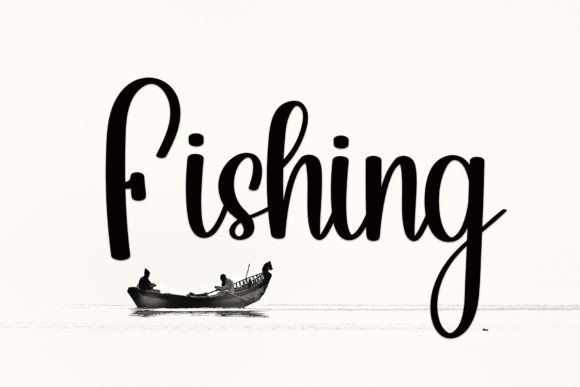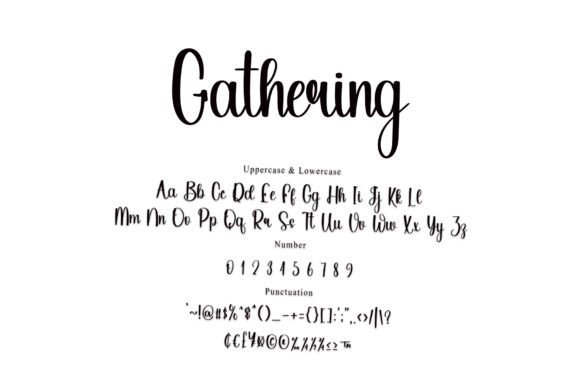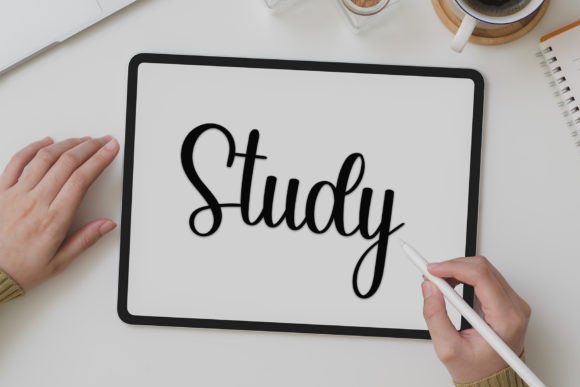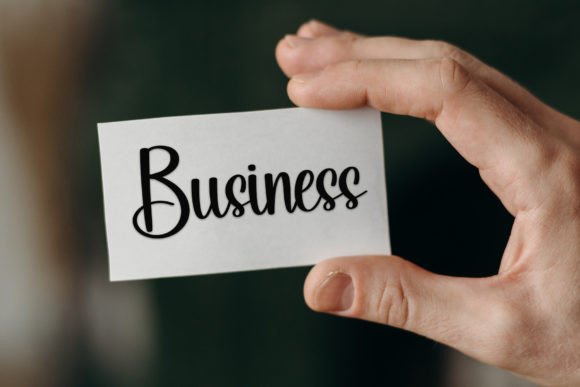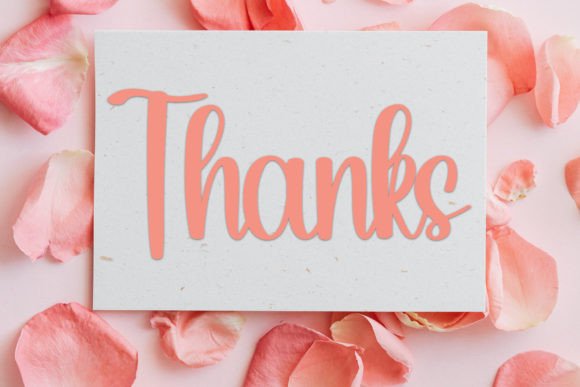
The Perfect Creative Companion: A Deep Dive into Gathering Font
I’ll never forget the moment I stumbled upon the Gathering font while working on a DIY project for a client’s wedding invitation. I had spent hours searching for the perfect handwritten font that exuded elegance and playfulness, but nothing seemed quite right. That was until I laid eyes on Gathering – it was love at first sight! 💕
With its unique blend of whimsy and sophistication, Gathering has become my go-to font for a wide range of creative projects. In this article, I’ll share my honest review, provide a practical guide on how to use it, and explore similar fonts that might tickle your fancy.
An Honest Review of Gathering Font
- ✨ Elegant yet playful: Gathering strikes the perfect balance between sophistication and whimsy, making it suitable for a wide range of projects.
- ✅ Highly versatile: From Instagram posts to calligraphy scripts, Gathering can be used for various creative endeavors.
- 💫 Unique character: The font’s distinctive style ensures that your work will stand out from the crowd.
- 🌟 Easy to read: Despite its decorative nature, Gathering remains surprisingly legible, even at smaller font sizes.
While Gathering is an exceptional font, it’s not without its limitations. For instance:
- ⚠️ Limited use in formal contexts: Gathering’s playful nature might make it unsuitable for very formal projects, such as corporate reports or academic papers.
- 🤔 Occasional kerning issues: As with any font, you might encounter some kerning issues, particularly when using it at larger font sizes.
- Take advantage of Gathering’s OpenType features, such as stylistic alternates, to add visual interest to your text.
- Explore the font’s glyphs and OpenType features, such as ligatures and swashes, to add a touch of elegance to your design.
While the true story behind Gathering font’s creation remains a mystery, it’s easy to imagine a designer with a passion for handwriting and elegance. Perhaps they were inspired by the fluid strokes of calligraphy or the whimsy of children’s handwriting. Whatever the inspiration, Gathering is a true masterpiece that brings a touch of personality to any project.
Q: What makes Gathering font unique?
A: Gathering font’s unique blend of elegance and playfulness sets it apart from other handwritten fonts.
Q: Is Gathering font difficult to read?
A: Despite its decorative nature, Gathering font remains surprisingly legible, even at smaller font sizes.
Q: Can I use Gathering font for calligraphy and hand-lettering projects?
A: Absolutely! Gathering font’s elegant and playful style makes it perfect for calligraphy and hand-lettering projects.